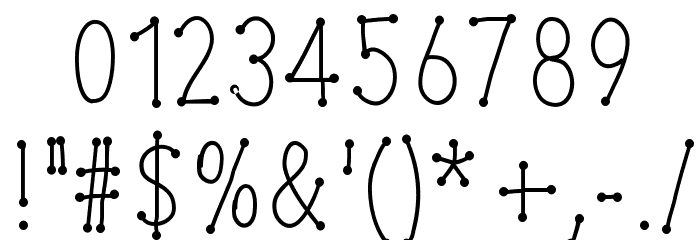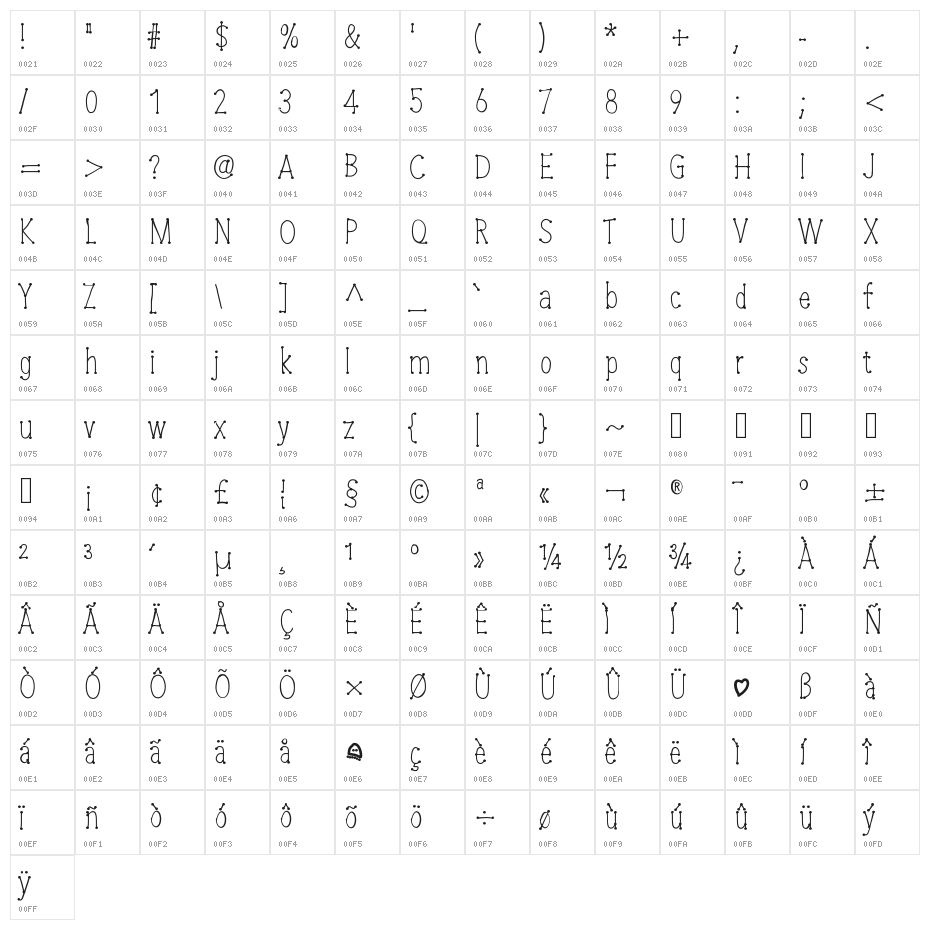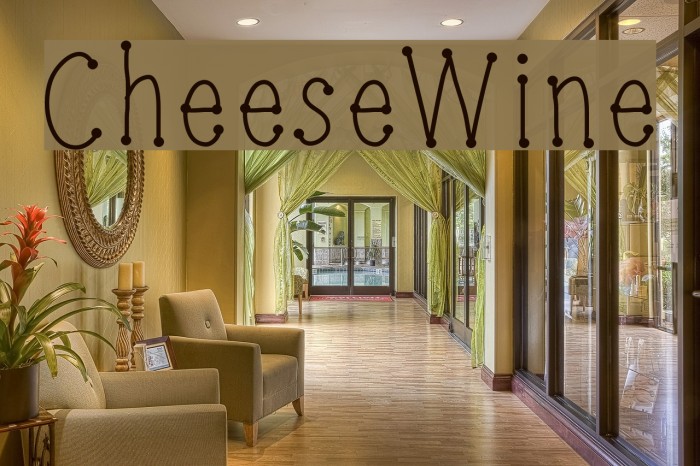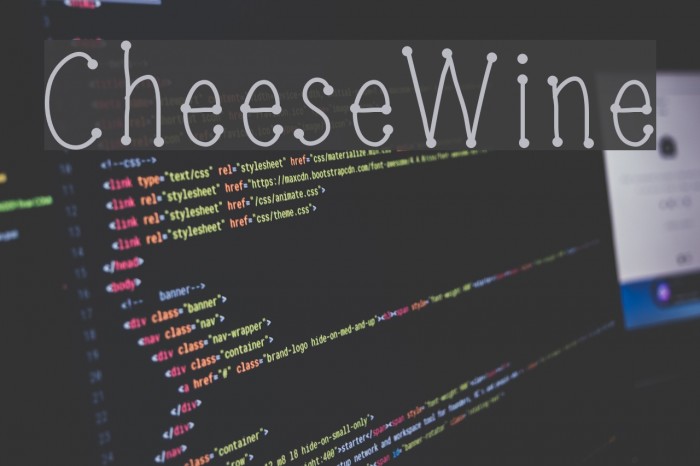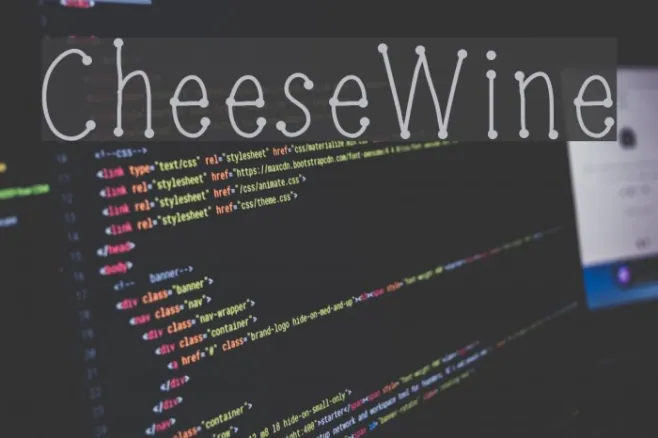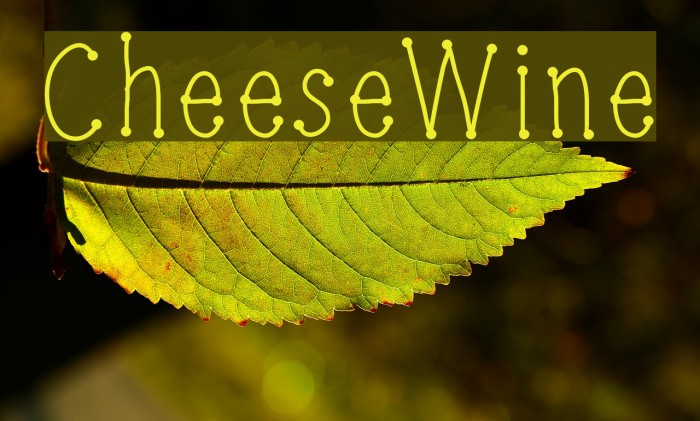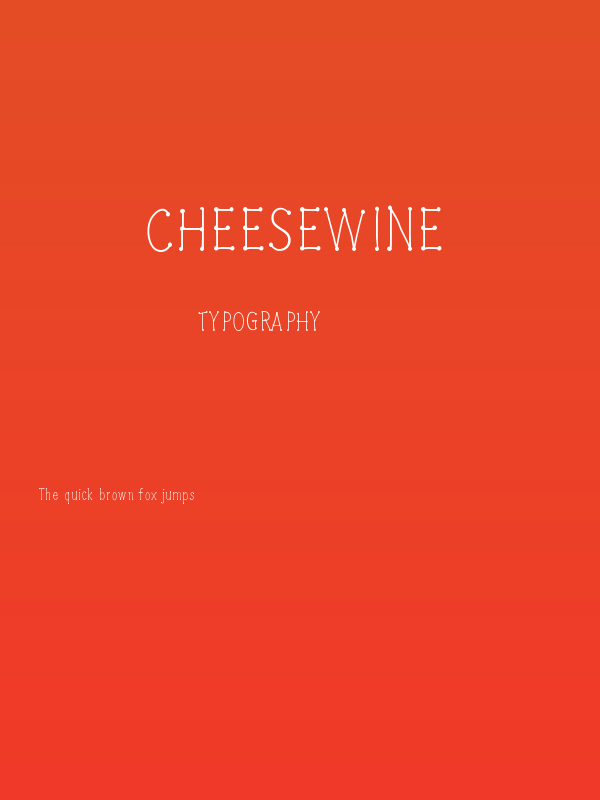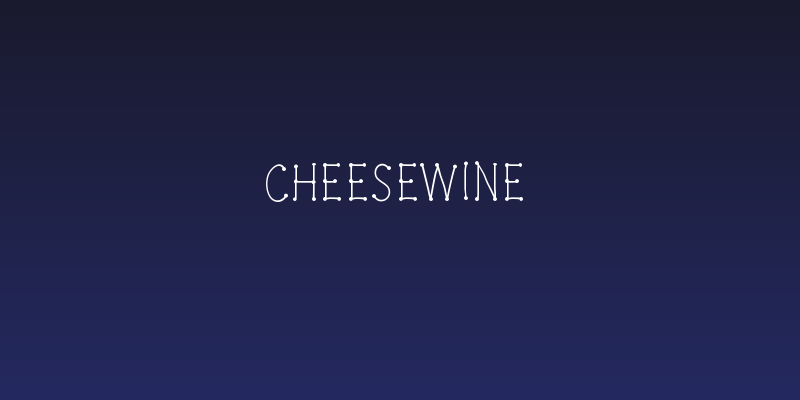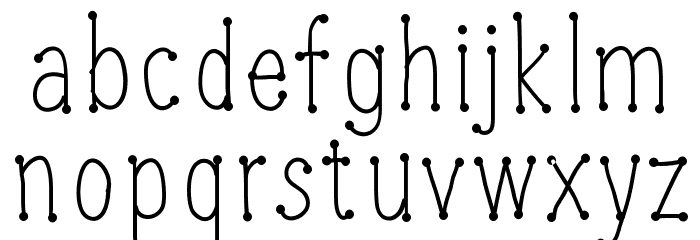
CheeseWine Font
CheeseWine Description
This font features a whimsical and playful design, characterized by its unique dotted line style. Each character is formed with a series of dots connected by thin lines, giving it a hand-drawn and casual appearance. The uppercase and lowercase letters maintain a consistent height, while the numerals and special characters follow the same playful theme. The font's overall look is light-hearted and informal, making it ideal for creative projects that require a touch of fun and personality. Its distinct style ensures readability while adding a unique flair to any design.
Benjamin Wyler